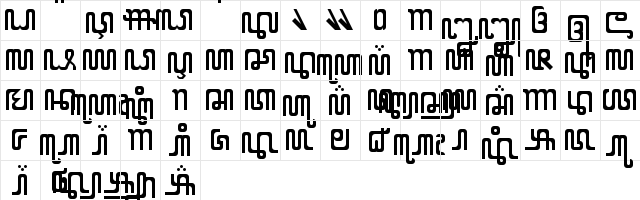
X Code from East Regular
| Designer | Adien Gunarta |
Design Context for X Code from East Typeface
X Code from East brings the precise, column-aligned rhythm of monospaced typography to designs that value technical clarity and systematic order.
Pro Tip: Pair X Code from East with a proportional sans for UI contexts where code-style labels and regular body copy need to coexist.